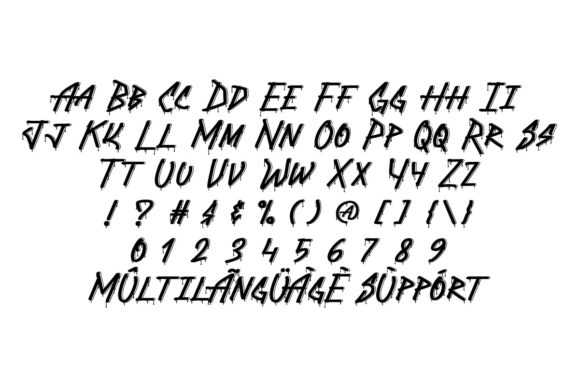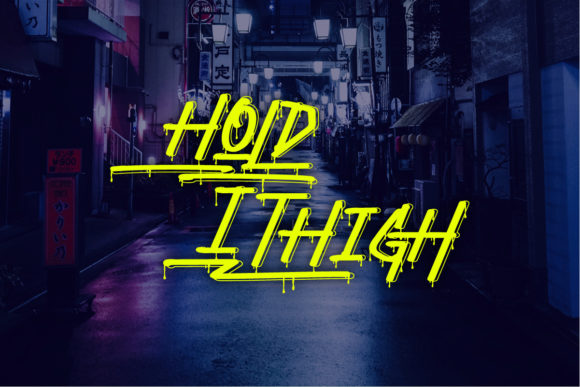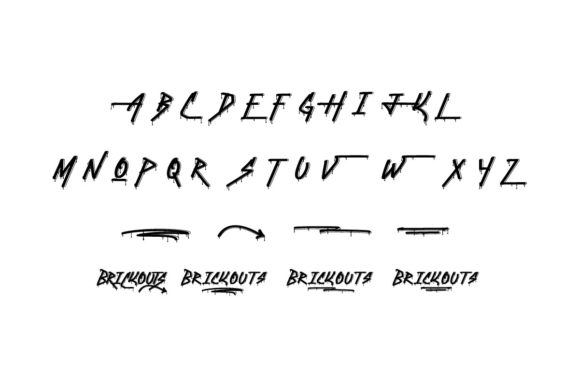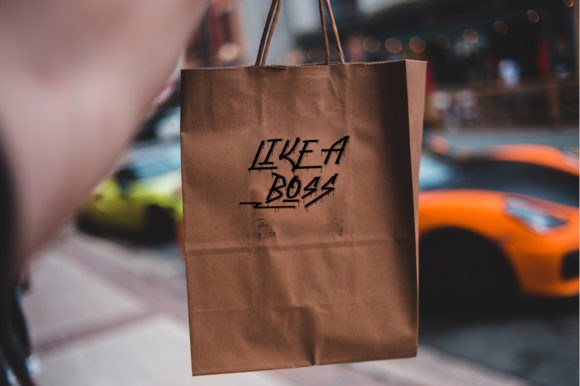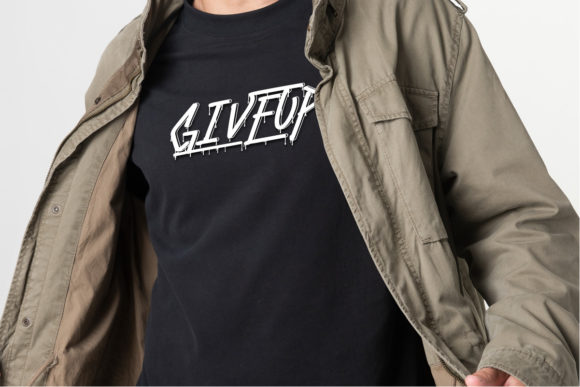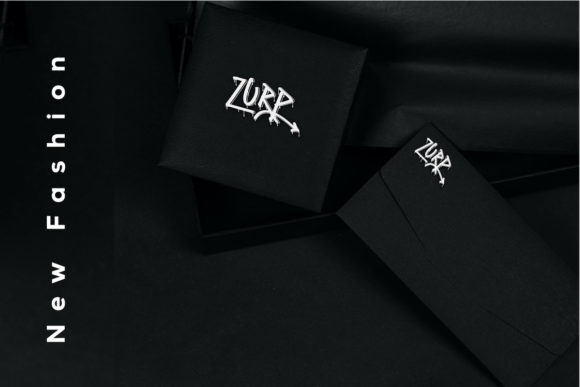
The Ultimate Guide to Brickouts Font: A Graffiti-Style Display Font
I’ll never forget the time I was working on a design project for a client who wanted a bold, eye-catching font to capture the essence of urban street art. I scoured the internet for hours, but nothing seemed quite right. That was until I stumbled upon Brickouts Font, a cool, graffiti-styled display font that perfectly encapsulated the vibe I was going for. In this article, I’ll share my experience with Brickouts Font, its features, and how to make the most of it in your designs.
An Honest Review of Brickouts Font
• PUA encoded for easy access to glyphs and swashes
• Graffiti-style design that’s perfect for urban-inspired projects
• 🌈 Vibrant and bold aesthetic that grabs attention
While Brickouts Font is an excellent choice for many projects, there are a few things to keep in mind:
• 🤔 May not be suitable for body text due to its bold and stylized nature
• ⚠️ Some swashes and glyphs may require manual adjustment to fit perfectly in your design
The Backstory of Brickouts Font
Brickouts Font was designed with the urban landscape in mind. Its creator, a type designer with a passion for street art, wanted to capture the energy and creativity of graffiti culture in a font that could be used by designers and artists alike. The result is a bold, stylized font that’s perfect for projects that require a touch of urban grit.
Q: What is PUA encoding, and how does it benefit Brickouts Font?
A: PUA (Private Use Area) encoding allows designers to access a wide range of glyphs and swashes in Brickouts Font, making it easier to create unique and customized designs.
Q: Is Brickouts Font suitable for body text?
A: While Brickouts Font is a beautiful font, it’s not ideal for body text due to its bold and stylized nature. It’s best used for headlines, titles, or other display text.